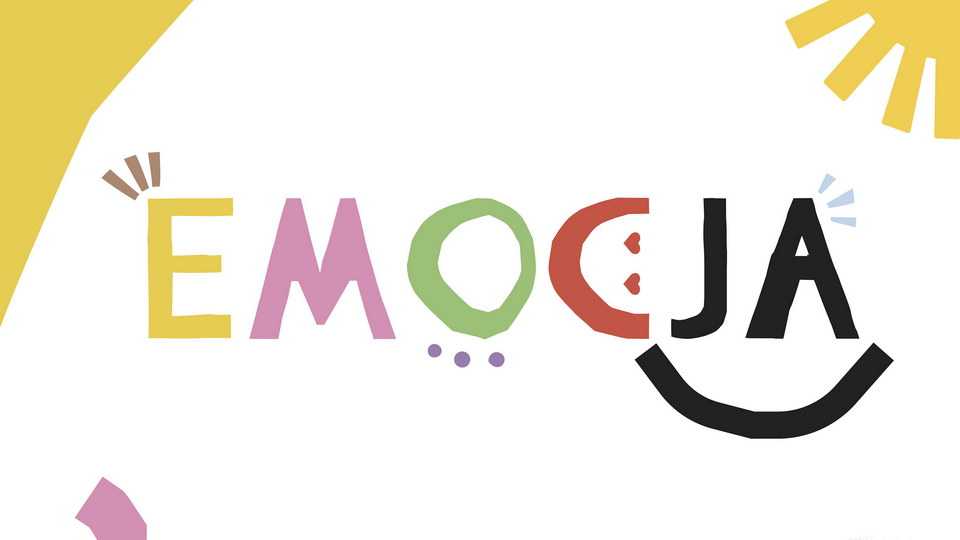
Download Emocja font, a fun paper cut typeface created to give a handmade feel to any project. The geometric shapes make Emocja especially perfect for kids projects and brands.
Designer: Hanna Rolinska